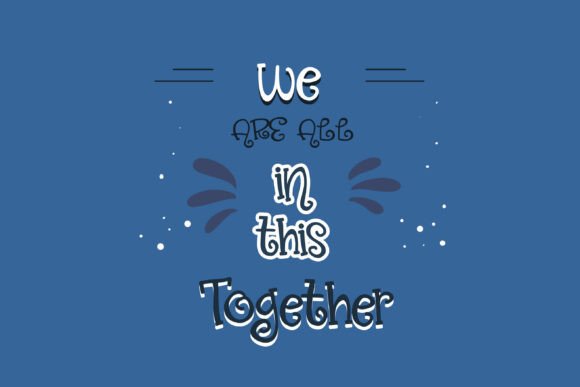
Little Boy Blue Font: A Whimsical Hand-Crafted Font for Creative Projects
The Little Boy Blue Font is a charming, hand-crafted font that is perfect for adding a touch of whimsy to any creative project. This font features curls and hand-crafted slab serifs throughout, giving it a unique and eye-catching appearance. In this article, we’ll take a closer look at the Little Boy Blue Font, its features, and how it can be used to enhance your designs.
What is a Hand-Crafted Font?
A hand-crafted font is a type of font that is designed to look like it was written by hand. These fonts are often used for invitations, greeting cards, and other items where a personal touch is desired. Handwritten fonts can be either formal or informal, and they can be used for a variety of purposes.
Hand-crafted fonts are typically designed to mimic the look of handwriting, with varying line widths, curls, and other imperfections that give them a unique and human feel. They can be used to add a touch of personality to any design, and are often used in creative projects such as scrapbooking, card making, and graphic design.
Features of the Little Boy Blue Font
The Little Boy Blue Font is a whimsical print font that features curls and hand-crafted slab serifs throughout. It is a hand-crafted font that is designed to look like it was written by hand, with a playful and informal feel. The font includes a light version, which can be used for a variety of purposes, from creating invitations and greeting cards to designing posters and flyers.
One of the standout features of the Little Boy Blue Font is its unique and eye-catching appearance. The font features curls and hand-crafted slab serifs that give it a playful and whimsical feel. The font is also highly legible, making it perfect for use in a variety of creative projects.
Uses for the Little Boy Blue Font
The Little Boy Blue Font is a versatile font that can be used for a variety of purposes. Here are a few ideas for using this font in your creative projects:
- Invitations: The Little Boy Blue Font is perfect for creating invitations for special occasions such as weddings, birthday parties, and baby showers.
- Greeting Cards: This font can be used to create unique and personalized greeting cards for holidays and special occasions.
- Graphic Design: The Little Boy Blue Font can be used in graphic design projects such as posters, flyers, and brochures.
- Scrapbooking: This font is perfect for use in scrapbooking projects, where it can be used to add a touch of personality to journaling and titles.
Tips for Using the Little Boy Blue Font
Here are a few tips for using the Little Boy Blue Font in your creative projects:
- Use it sparingly: While the Little Boy Blue Font is a beautiful font, it can be overwhelming if used too much. Use it sparingly to add a touch of personality to your designs.
- Pair it with other fonts: The Little Boy Blue Font can be paired with other fonts to create a unique and interesting look. Try pairing it with a sans-serif font for a modern and playful look.
- Experiment with colors: The Little Boy Blue Font can be used with a variety of colors to create a unique and eye-catching look. Experiment with different colors to find the one that works best for your design.
Benefits of Using Hand-Crafted Fonts
Hand-crafted fonts like the Little Boy Blue Font offer a number of benefits for creative projects. Here are a few of the benefits of using hand-crafted fonts:
- Unique and eye-catching: Hand-crafted fonts are unique and eye-catching, making them perfect for adding a touch of personality to your designs.
- Personal touch: Hand-crafted fonts can add a personal touch to your designs, making them feel more human and less generic.
- Flexibility: Hand-crafted fonts can be used for a variety of purposes, from invitations and greeting cards to graphic design and scrapbooking.
The Little Boy Blue Font is a charming, hand-crafted font that is perfect for adding a touch of whimsy to any creative project. With its unique and eye-catching appearance, this font is sure to make your designs stand out. Whether you’re creating invitations, greeting cards, or graphic design projects, the Little Boy Blue Font is a great choice.
Hand-crafted fonts like the Little Boy Blue Font offer a number of benefits for creative projects, including a unique and eye-catching appearance, a personal touch, and flexibility. By using hand-crafted fonts in your designs, you can add a touch of personality and make your designs feel more human and less generic.
So why not give the Little Boy Blue Font a try? With its playful and informal feel, it’s perfect for a variety of creative projects. And with its light version included, you can use it for a range of purposes, from creating invitations and greeting cards to designing posters and flyers.